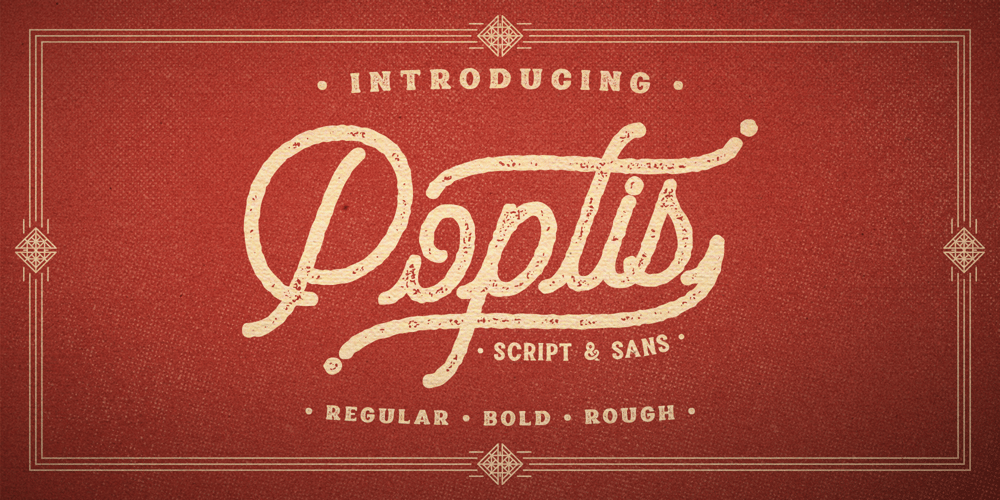
Poptis Font Family was designed by Angga Kristiandri and published by Abbasy Studio. Poptis contains 4 styles and family package options. The combination of two different font styles ‘script and sans’ . Poptis font available in Regular, Bold, and Rough version as a choice to mix and match your design. This script font comes with multiple alternates that will make your words look like a custom lettering. With additional Serif font you will be able to create the beautiful combination. Both of these font is great for Logos, Lettering, Clothing Design, Poster, Label, Quotes, etc.